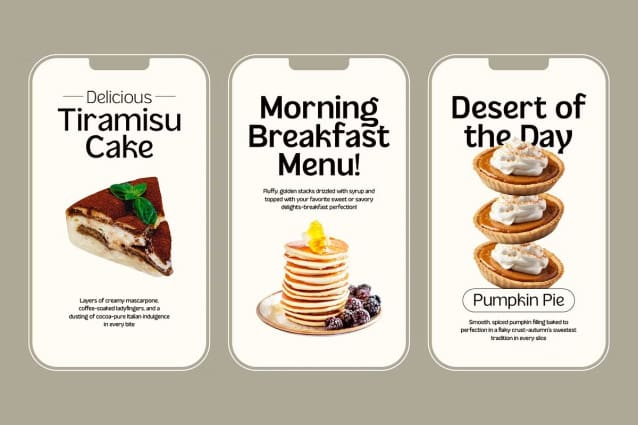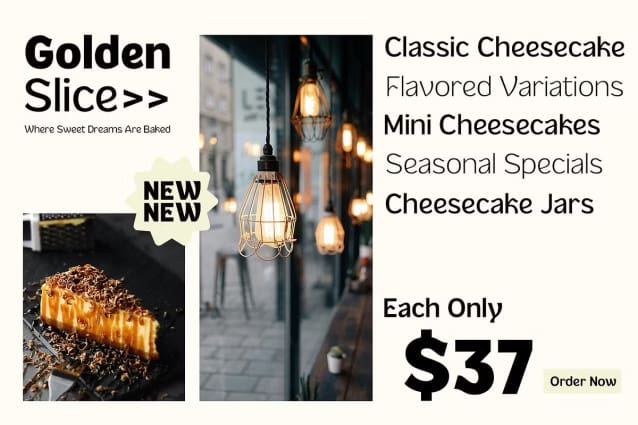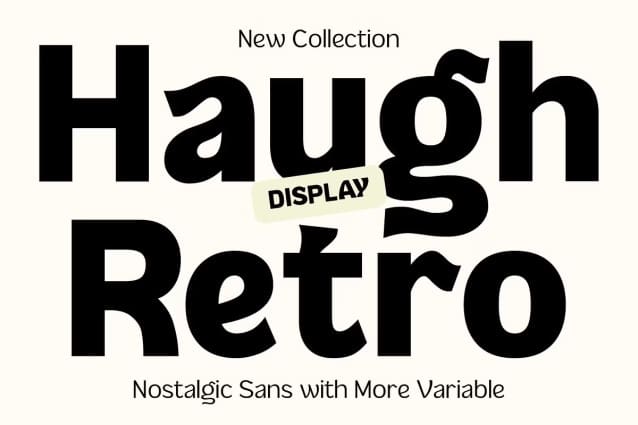
Haugh Font
Haugh Font is a sans-serif typeface that features unique wave-like characteristics in the glyphs with terminals. This distinct design adds a memorable touch to your branding.